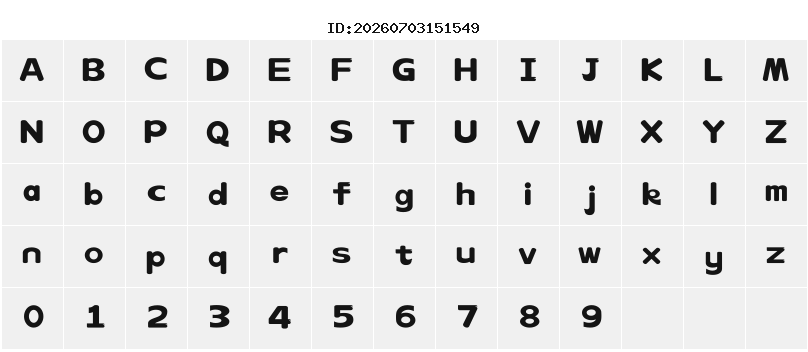
291-上首淘气体 Preview
• Font Name: 291-上首淘气体
• Font ID: 291-SSTaoQiTi:Version 4.00
• Full Font Name: 291-上首淘气体
• Version: Version 4.00 January 15, 2024
• PostScript Name: 291-SSTaoQiTi
• Character Count: 7567
• Manufacturer: 上首造字
About 291-上首淘气体.ttf
291-上首淘气体.ttf is a modern, elegant sans-serif font designed for ultimate readability and visual harmony. Perfect for branding, headlines, web design, and print materials.